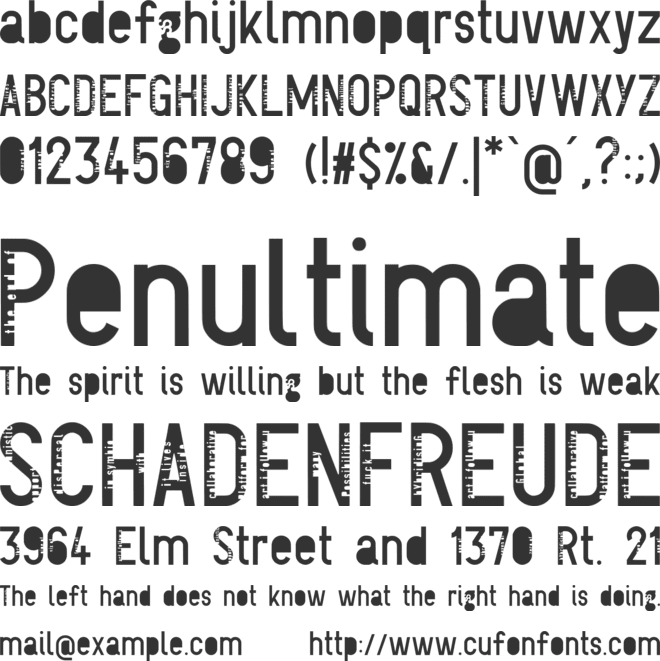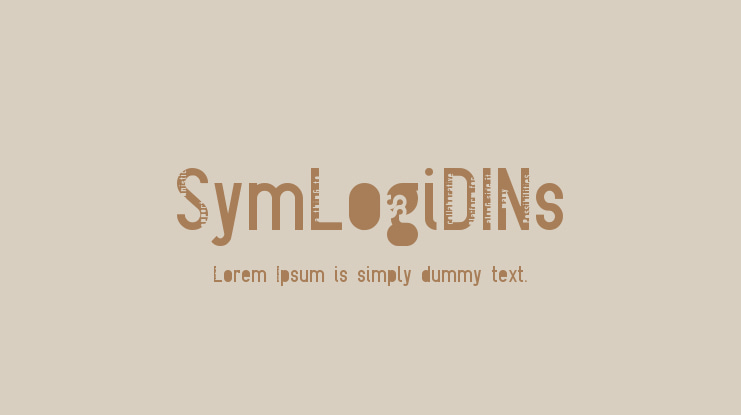
The fonts are based on a modification and amulgation of the fonts OSP-Logisoso and OSP-DIN, in symbiosis with a parallel text. It is part of a research project that investigates the status of an art object in relation to dispersal by artists. Documentation about this project is available at: http://www.symbiotext.net and http://wvrijn.wordpress.com/ * If you use this font please send me a copy of your publication or work, because I am really interested in where it all goes, and what happens with the stuff I publish for free. Alternatively you can also donate via a link on my website to support my art practice. * http://www.symbiotext.net/downloads/